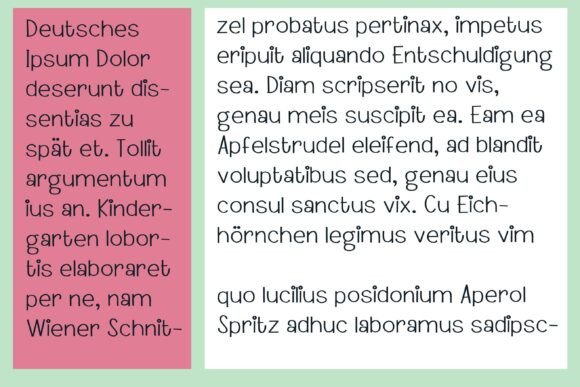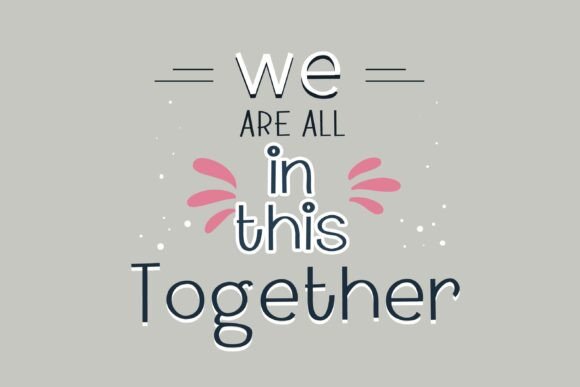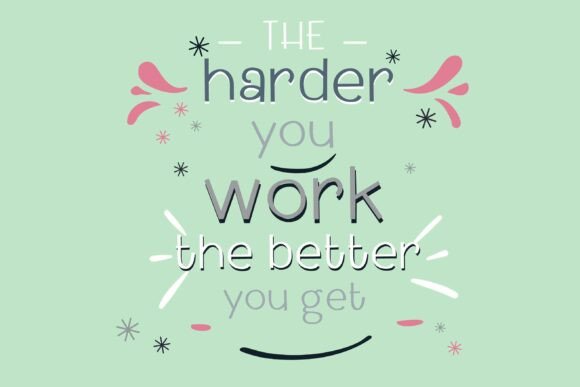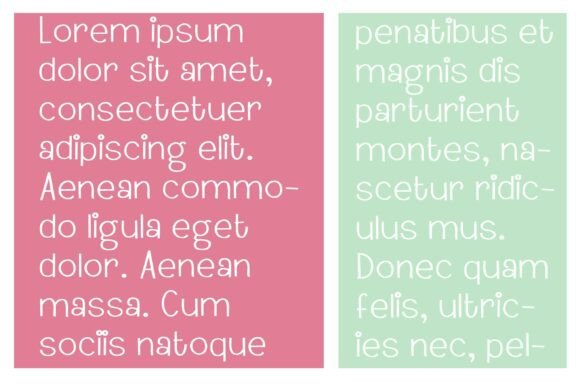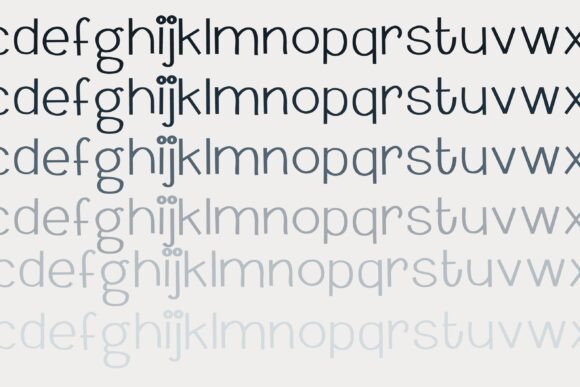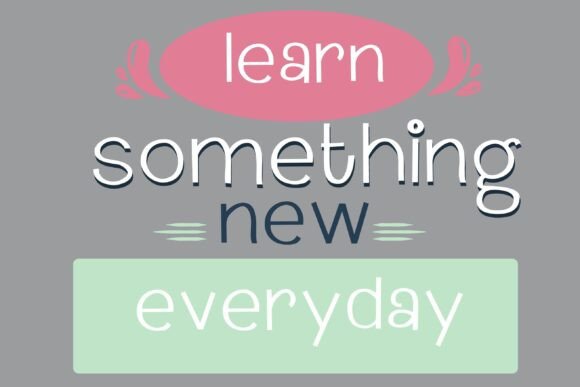
Introduction to Fudright Font
This hand-crafted font is a simple sans serif print.
Bold version included A hand-crafted font is a font that is designed to look like it was written by hand.
Key Features of Fudright Font
Why Choose Fudright Font?